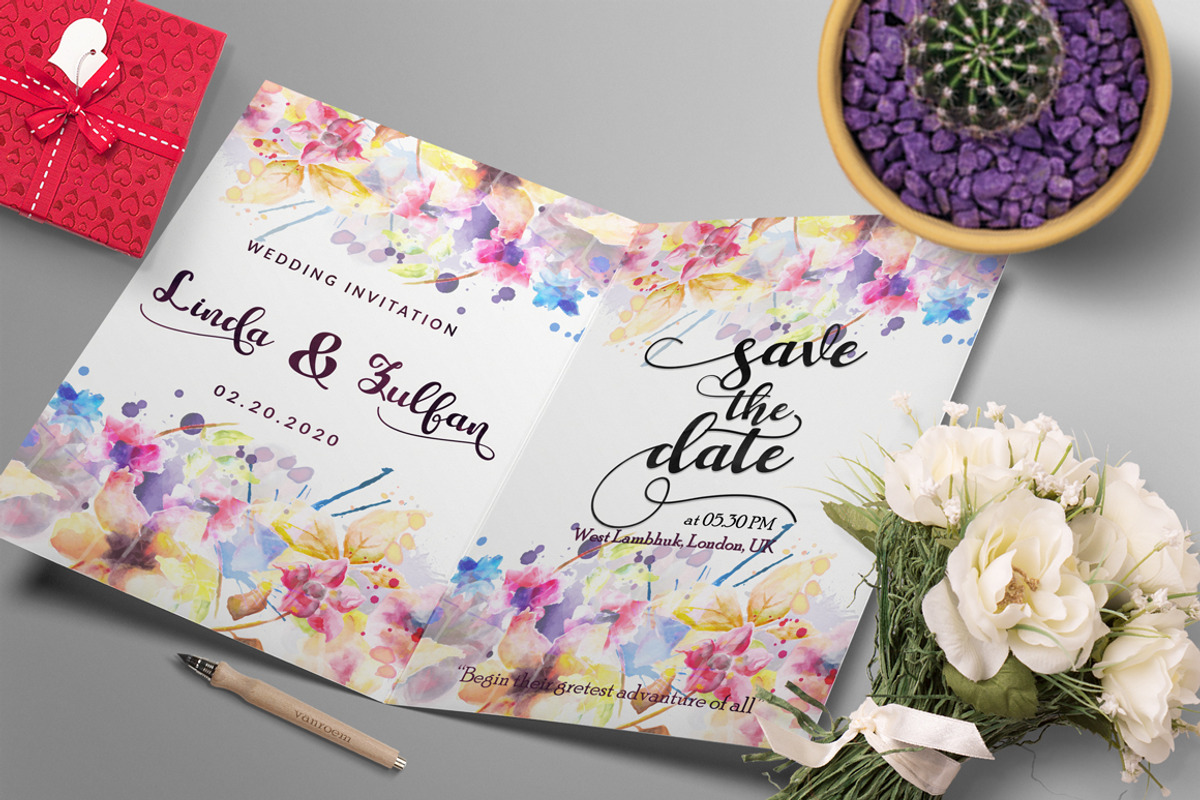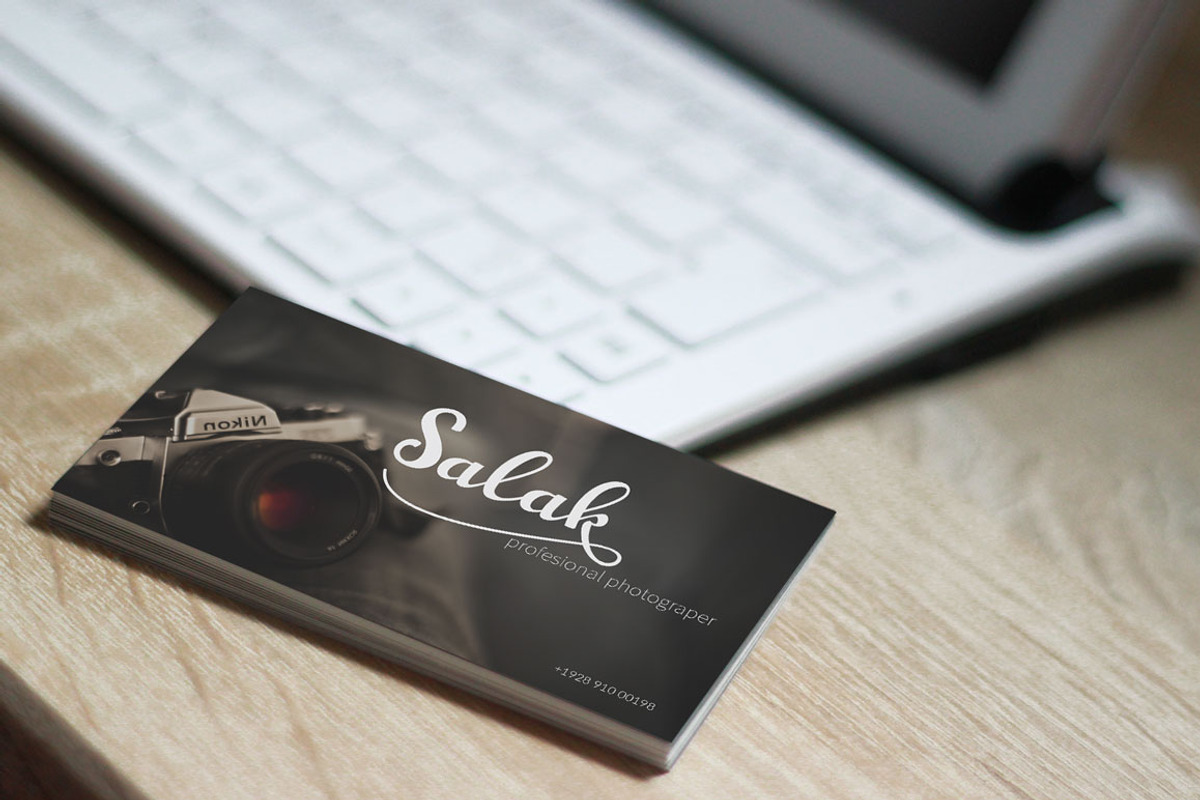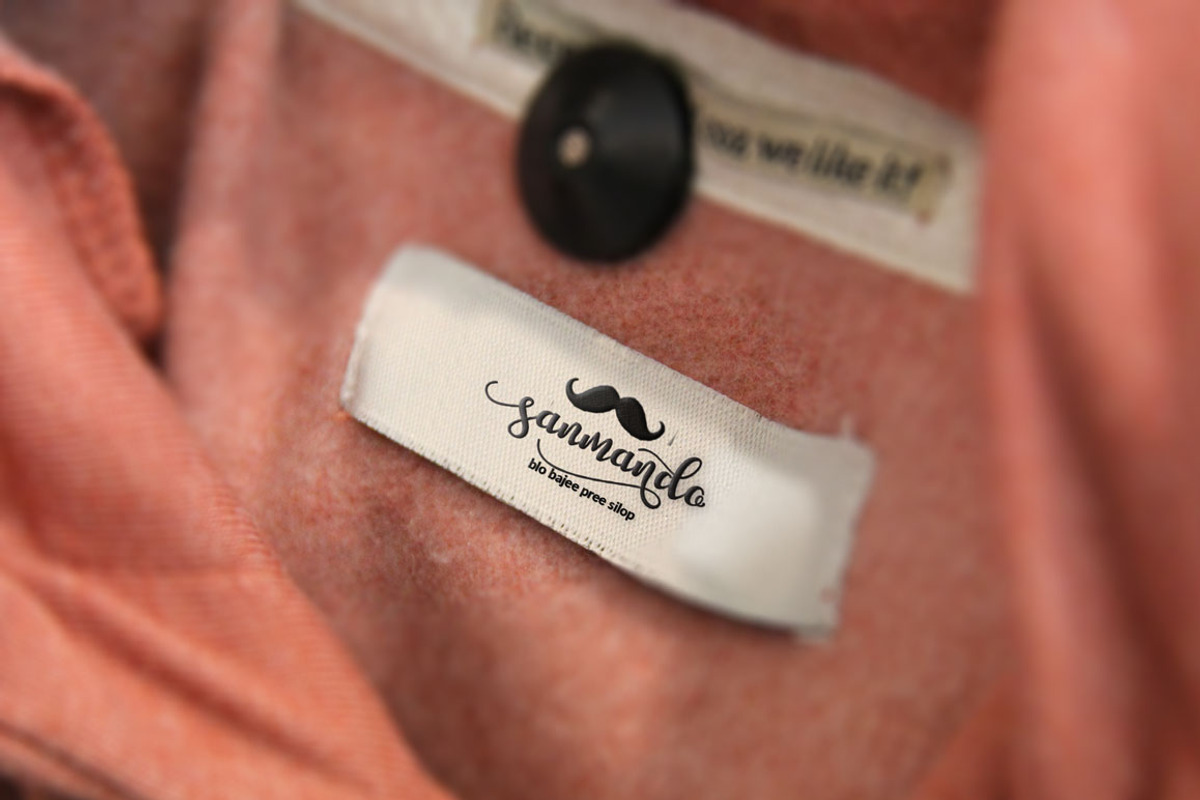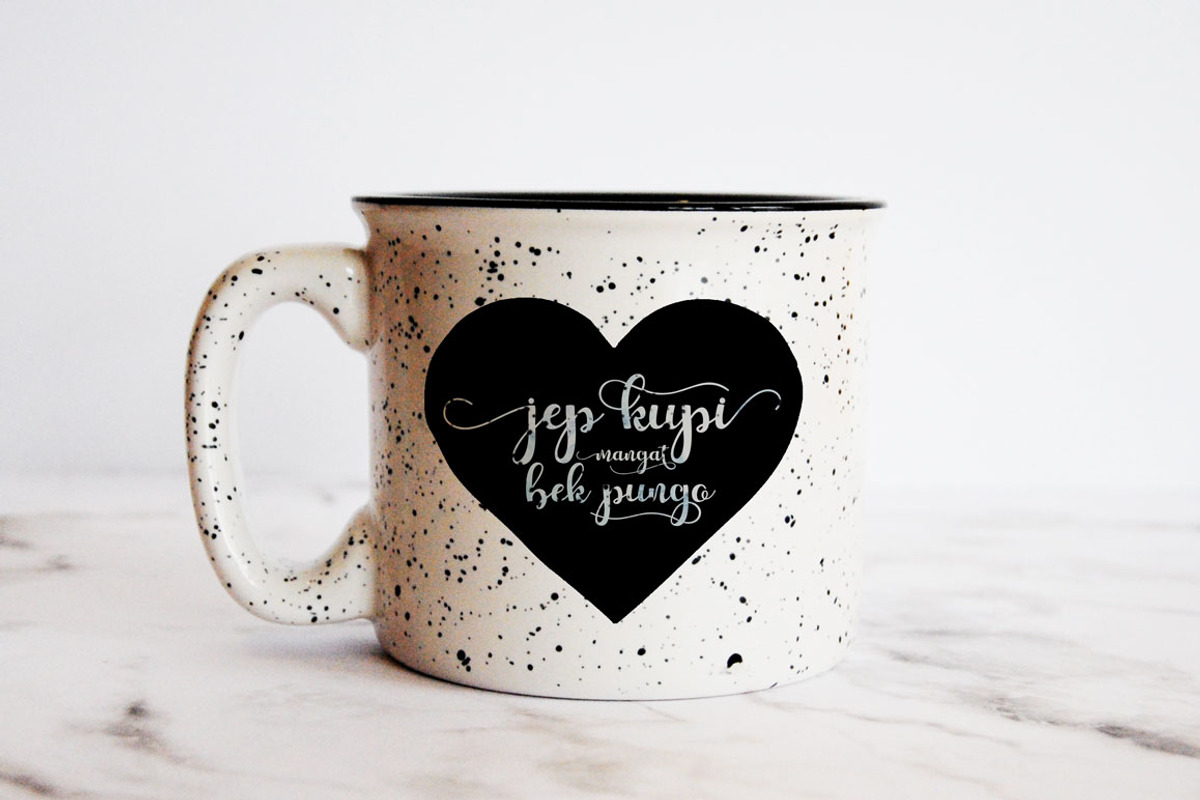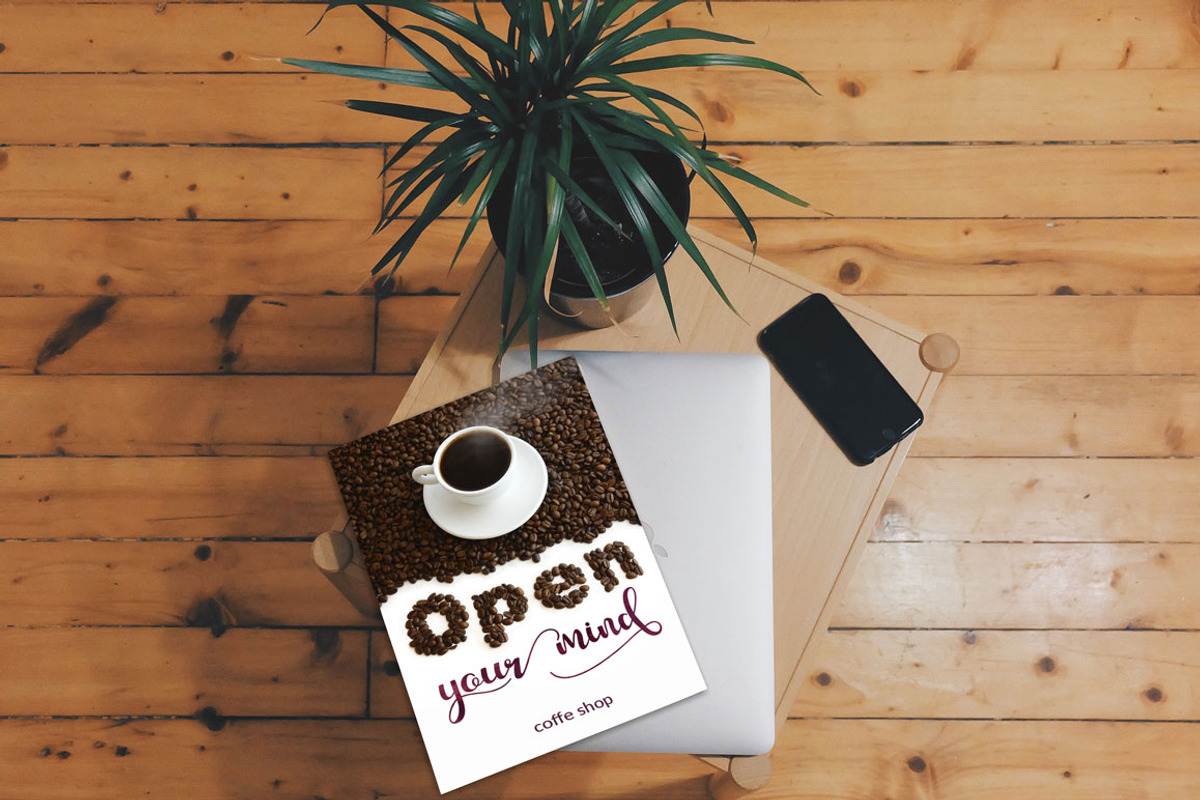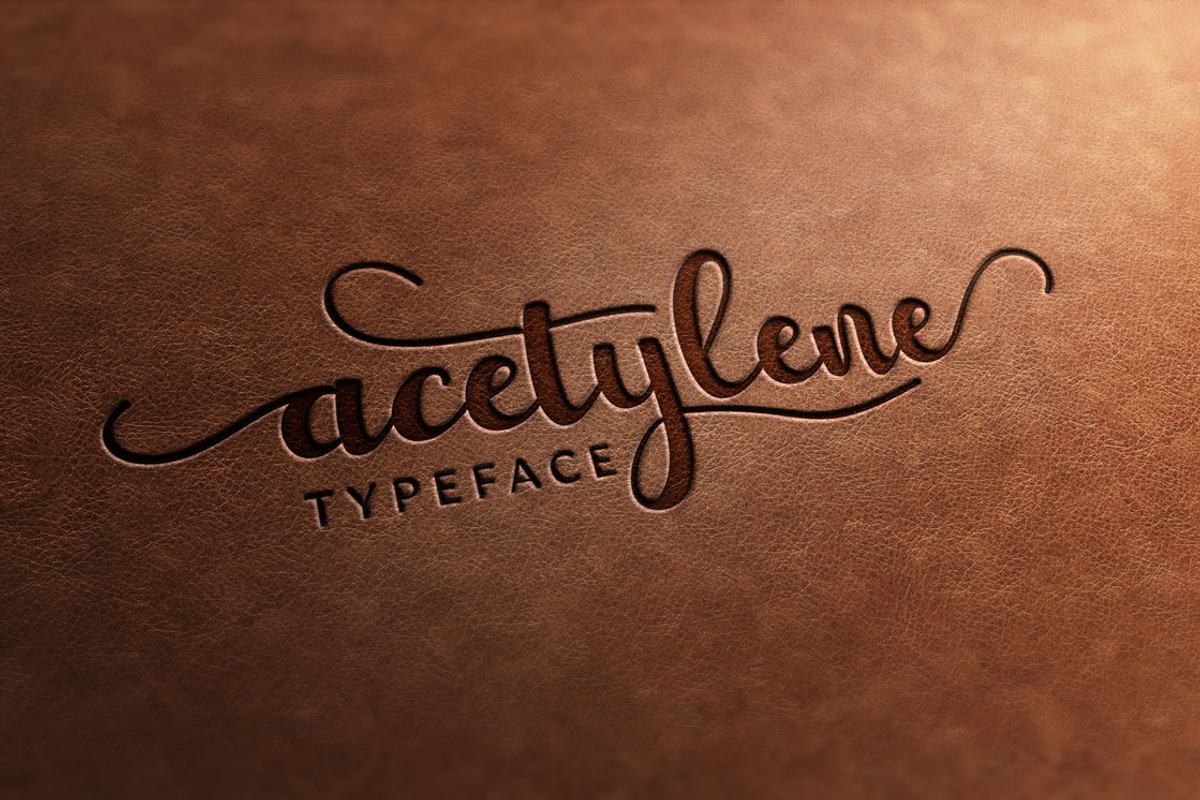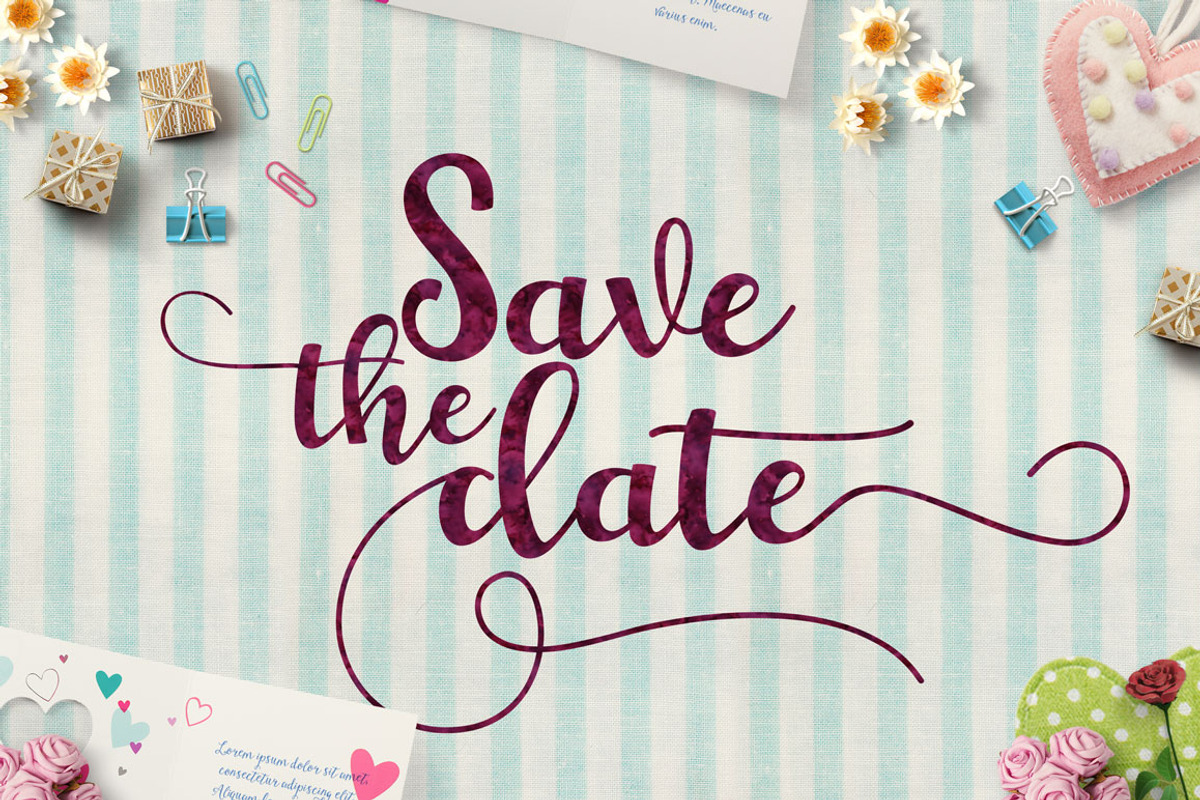
Acetylene Script
Acetylene Script is a new modern calligraphy Script fonts, combines from copperplate to contemporary typeface, classic and elegant touch. With extra bouncy curves & loops,
Acetylene Script is guaranteed to make your text stand out - perfect for logos, printed quotes, invitations, cards, product packaging, headers and whatever your imagination holds.
Acetylene Script features 509 glyphs and alternate character contain with opentype features and has given PUA unicode (specially coded fonts). Stylistic alternates, Swash Alternates, Ligature and more. You can access all those alternate characters by using OpenType savvy programs such as Adobe Illustrator, Adobe InDesign and CorelDraw X6-X7.
Acetylene Script is suitable for apparel brand, any greeting cards, painting design style, or any design that needs natural and personal touch. Mix and match the alternate characters to add an attractive message to your design.